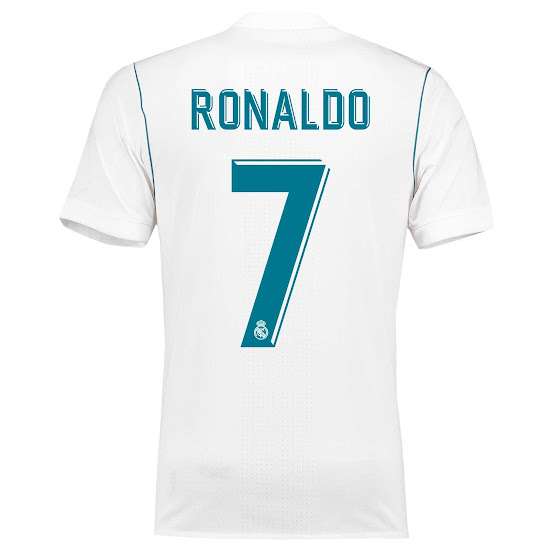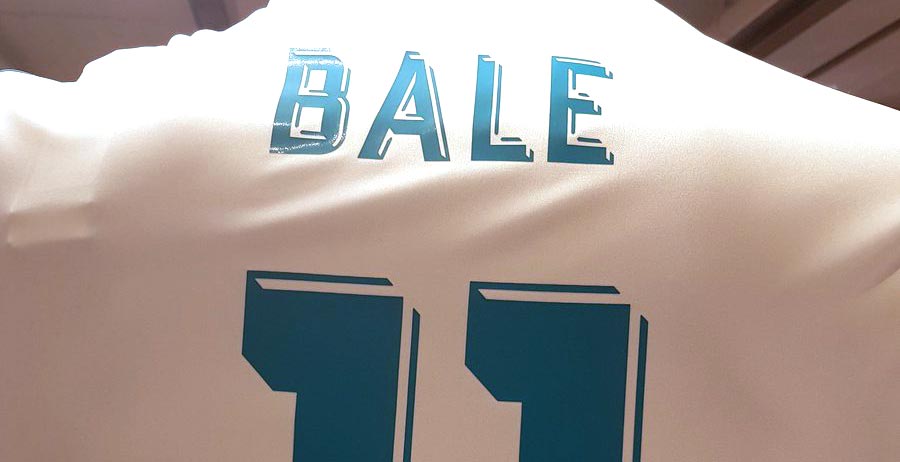
Real Madrid 17-18 Font Revealed
With today's launch of the new 17-18 home and away kits, Real Madrid also offered a first look at the club's new typeface for player names and numbers.
Surprisingly, the font seen on the new Real Madrid jerseys is not the uniform La LIga design to be used from next season, although it remains to be seen whether this is just for cup games or also the league.
Real Madrid 17-18 Font
This is the new Real Madrid font on the Ronaldo home shirt.
The new Real Madrid font is a modern sans-serif with cutout details around the edges and the club crest placed at the bottom of the numerals.
It is turquoise on the new home kit and white on the away. Both green and red goalkeeper jerseys feature white letters and numbers.
As mentioned above, it'll be interesting to see whether Real Madrid will actually use this font in the league, or only in the Champions League and Copa del Rey.